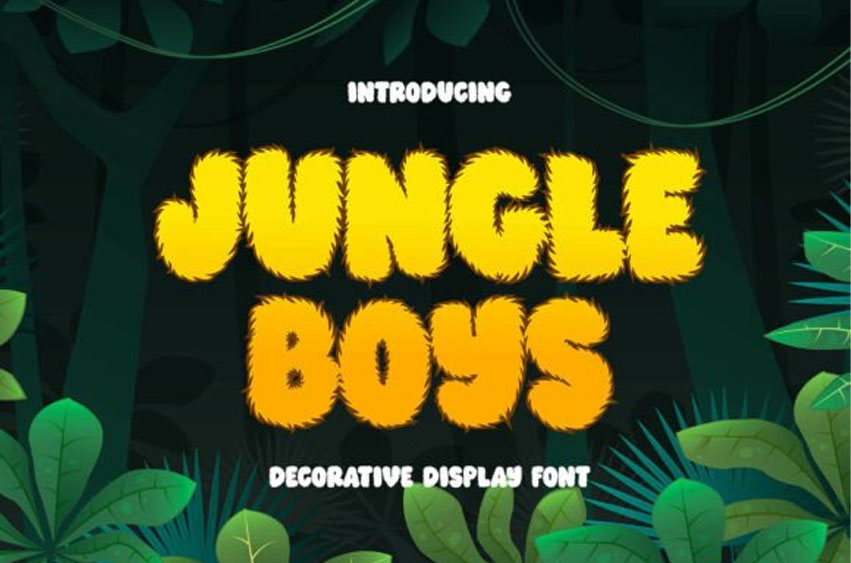
Jungle Boys Font
Jungle Boys Font Enter into the vibrant wilderness with Jungle Boys, an audacious display font that draws inspiration from the heart of the jungle itself! With its mischievous bends and lush, robust strokes, this font promises to instill an essence of fun and exploration into every creative endeavor you undertake.
From children-themed posters to jungle storybooks, from colourful animations to birthday invitations, and even when it comes to branding elements that bring out the spirit of nature, Jungle Boys holds the potential to reignite creativity in an unthinkable manner. Whether your artistic pursuits are aimed at the younger population or you wish to weave a distinct touch of wilderness into your work, Jungle Boys steals the limelight, inspiring creativity at its finest.